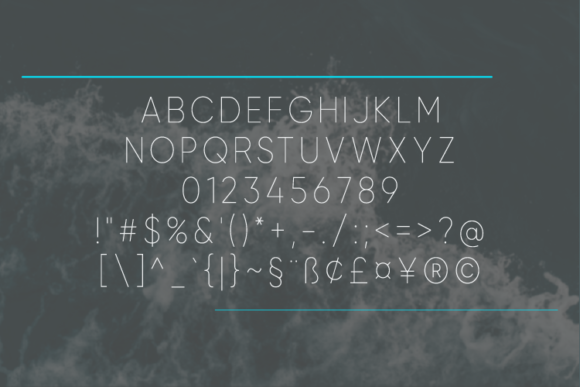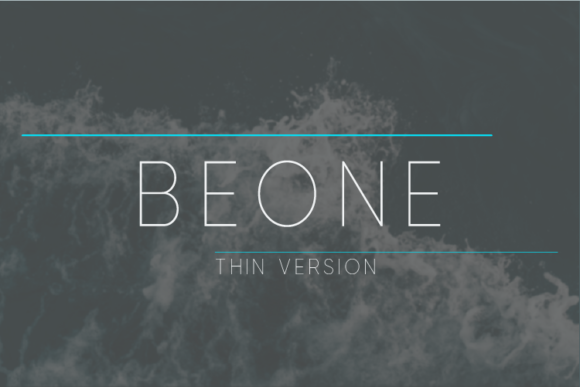
Introducing Beone Thin Font: Elevate Your Designs with Modern Minimalism
Are you on the hunt for a font that embodies the essence of modern minimalism? Look no further than Beone Thin – a sleek and sophisticated sans serif font that’s taking the design world by storm. Inspired by the latest trends in branding, natural cosmetic packaging, and creamy neutral shades, Beone Thin is the perfect addition to your typography arsenal.
The Inspiration Behind Beone Thin
Beone Thin’s design is rooted in the principles of minimalism, with a focus on clean lines, simplicity, and elegance. The font’s creators drew inspiration from the world of beauty and cosmetics, where natural packaging and subtle branding have become increasingly popular. The result is a font that exudes a sense of calmness and serenity, making it ideal for designers and crafters looking to create a professional and understated look.
Key Features of Beone Thin Font
- Modern sans serif design: Beone Thin boasts a fresh and contemporary sans serif design that’s perfect for headlines, body text, and everything in between.
- Thin and elegant strokes: The font’s thin strokes add a touch of sophistication and refinement, making it ideal for designs that require a high level of elegance.
- Highly legible: Beone Thin is designed to be highly legible, even at small font sizes, ensuring that your message is conveyed clearly and effectively.
- Versatile and adaptable: Whether you’re working on a branding project, packaging design, or digital application, Beone Thin is the perfect choice for designers and crafters.
Use Cases for Beone Thin Font
Beone Thin’s versatility makes it an excellent choice for a wide range of design projects, including:
- Branding and logos: Create a lasting impression with Beone Thin’s modern and sophisticated design.
- Packaging design: Elevate your product packaging with a font that’s inspired by the world of natural cosmetics.
- Digital applications: Use Beone Thin in your digital projects, such as website design, mobile apps, and social media graphics.
- Print materials: Add a touch of elegance to your print materials, including brochures, flyers, and business cards.
Why Choose Beone Thin Font?
With so many fonts available, why choose Beone Thin? Here are just a few reasons why designers and crafters are falling in love with this modern sans serif font:
- Unique and distinctive design: Beone Thin’s design is unlike any other font on the market, making it the perfect choice for designers looking to stand out from the crowd.
- Easy to use and pair: Beone Thin is designed to be easy to use and pair with other fonts, making it a versatile addition to your typography collection.
- Professional and elegant look: Add a touch of sophistication and elegance to your designs with Beone Thin’s modern and refined design.